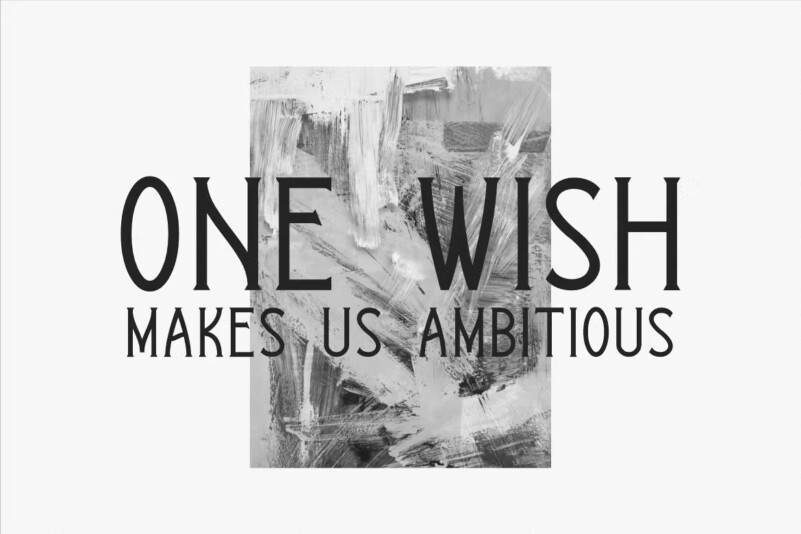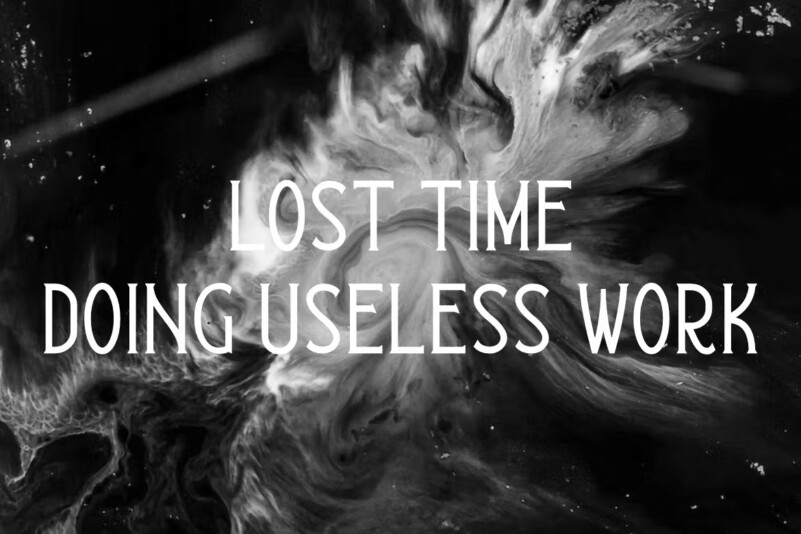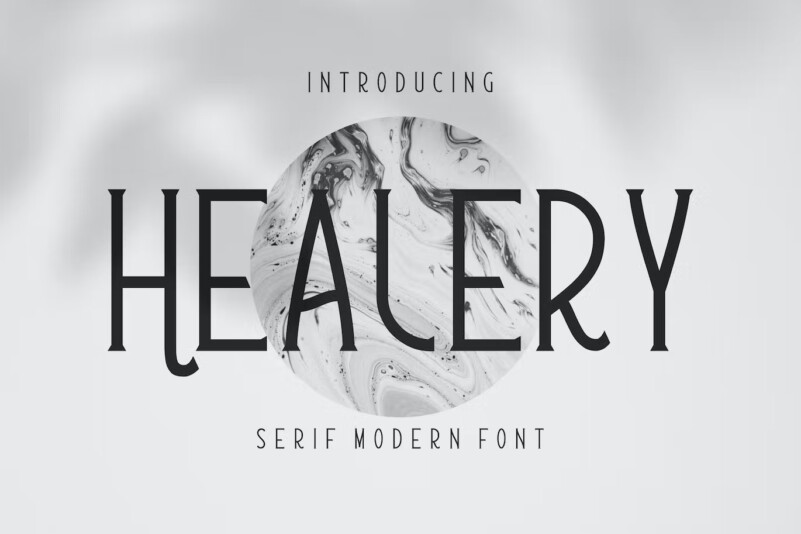
Healery Serif Modern Font
Introducing our new product, the name is *Healery Serif Modern Font*. This collection of scripts is perfect for personal branding. It was created for the purpose of being used for your personal branding. But it works well for many applications. Everything from personal branding, logos, name tags, handwritten quotes, product packaging, merchandise, social media and greeting cards, to photography, signature and advertising, could benefit from this collection of these Font